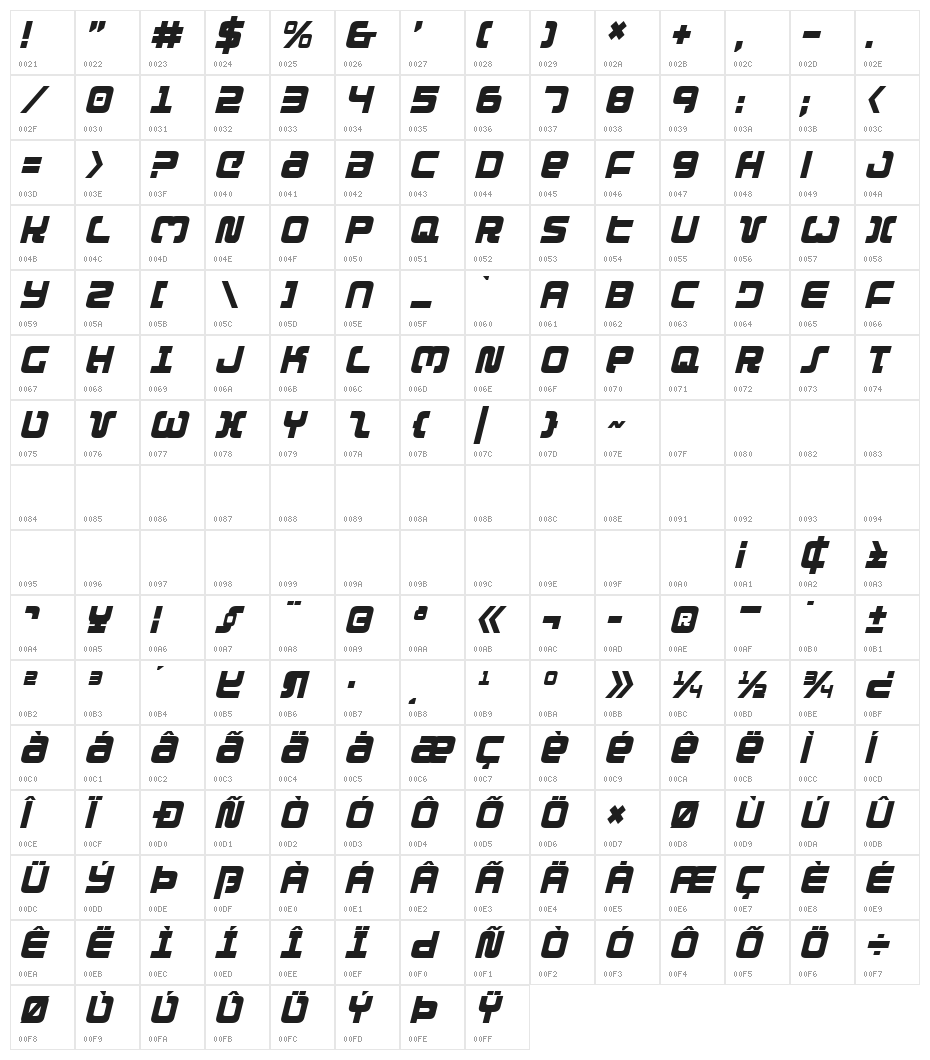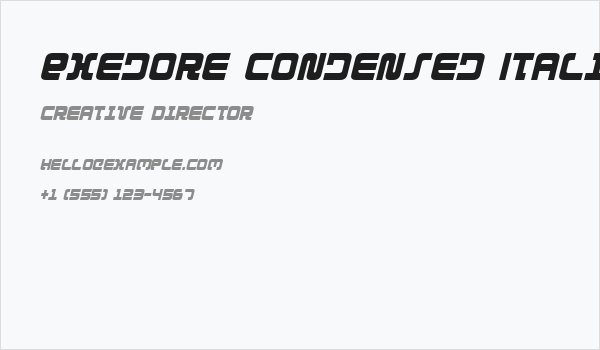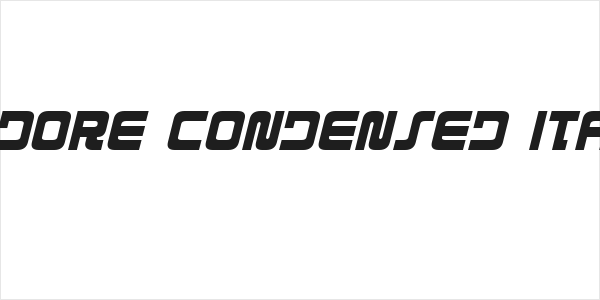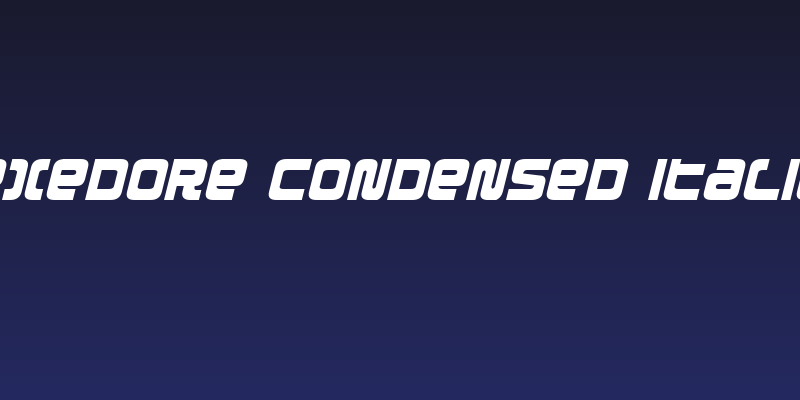
Exedore Condensed Italic Font
Exedore Condensed Italic Description
This font features a bold, italicized style with a condensed width, giving it a sleek and modern appearance. The characters are designed with a futuristic flair, incorporating sharp angles and smooth curves that create a dynamic and energetic look. The uppercase and lowercase letters maintain a consistent style, with a slight slant that enhances the italic effect. The numerals and special characters are equally bold and stylized, ensuring a cohesive appearance across all text. This font's unique design makes it stand out, ideal for projects that require a strong visual impact.
| Proposed Projects | Ideal for technology branding, sports team logos, video game titles, and dynamic poster designs. |